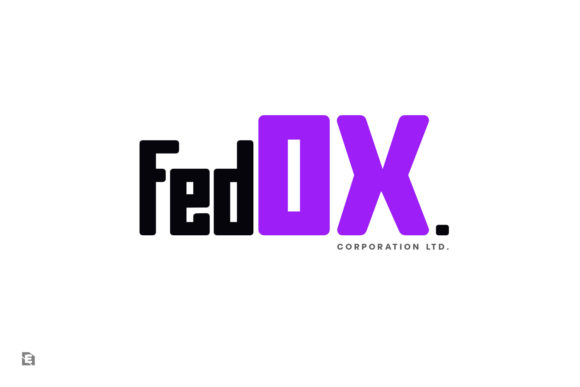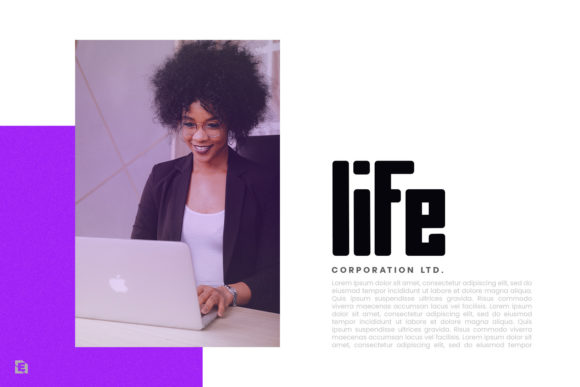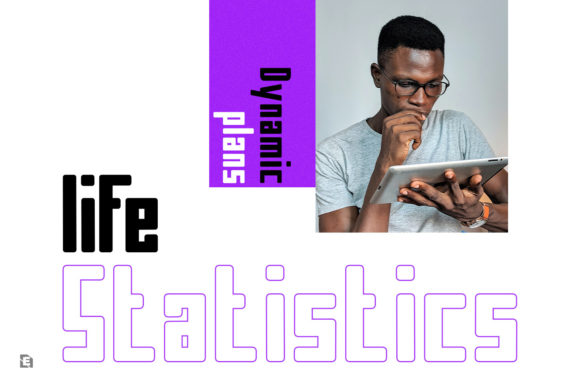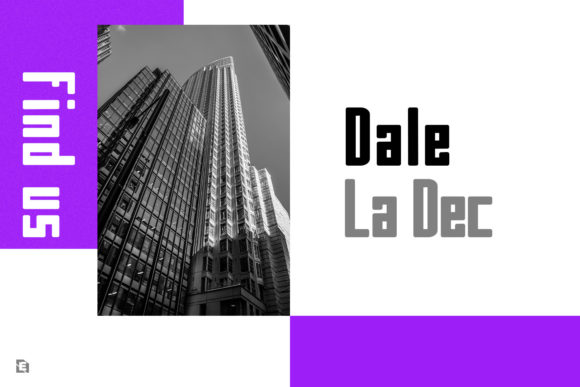
Introducing Fedox Font: The Ultimate Modern Display Font
In the world of typography, a good font can make all the difference in creating a lasting impression. For designers and crafters, finding the perfect font for a project can be a daunting task. However, if you’re looking for a unique and modern display font that can elevate your designs, look no further than Fedox Font. In this article, we’ll explore the features and benefits of Fedox Font, and why it’s the perfect choice for creating outstanding logos, promotional content, marketing graphics, and more.
What is Fedox Font?
Fedox Font is a modern display font designed to make a statement. Its unique and sleek design makes it perfect for headlines, big text, branding, logotypes, and display usage. With its clean lines and contemporary style, Fedox Font is ideal for designers and crafters who want to add a touch of sophistication and elegance to their work.
Key Features of Fedox Font
So, what sets Fedox Font apart from other fonts? Here are some of its key features:
- Unique and Modern Design: Fedox Font boasts a fresh and modern design that’s sure to grab attention.
- Perfect for Headlines and Display Usage: With its bold and sleek lines, Fedox Font is ideal for headlines, titles, and display text.
- Highly Versatile: Fedox Font can be used for a wide range of projects, from logos and branding to promotional content and marketing graphics.
- Easily Readable: Despite its bold design, Fedox Font is easy to read, making it perfect for use in a variety of contexts.
Benefits of Using Fedox Font
So, why should you choose Fedox Font for your next project? Here are just a few benefits of using this amazing font:
- Stand Out from the Crowd: With Fedox Font, you can create designs that stand out from the crowd and grab attention.
- Professional and Sophisticated: Fedox Font adds a touch of professionalism and sophistication to any design, making it perfect for businesses and brands.
- Unlimited Creative Possibilities: With Fedox Font, the creative possibilities are endless. Use it for logos, branding, promotional content, and more.
How to Use Fedox Font
Using Fedox Font is easy. Here are a few tips to get you started:
- Logos and Branding: Use Fedox Font to create stunning logos and branding materials that make a lasting impression.
- Promotional Content: Add a touch of sophistication to your promotional content, such as brochures, flyers, and posters.
- Marketing Graphics: Use Fedox Font to create eye-catching marketing graphics, such as social media graphics and email headers.
- Headlines and Titles: Use Fedox Font to add a touch of elegance to your headlines and titles.
In conclusion, Fedox Font is a unique and modern display font that’s perfect for designers and crafters who want to create outstanding designs. With its sleek design, versatility, and ease of use, Fedox Font is the perfect choice for a wide range of projects. Whether you’re looking to create stunning logos, promotional content, marketing graphics, or more, Fedox Font is the ultimate modern display font.